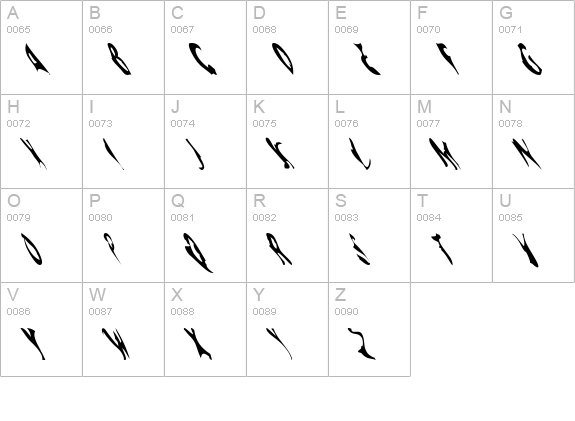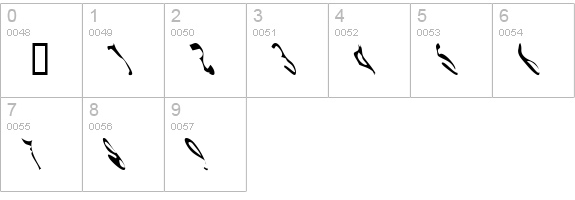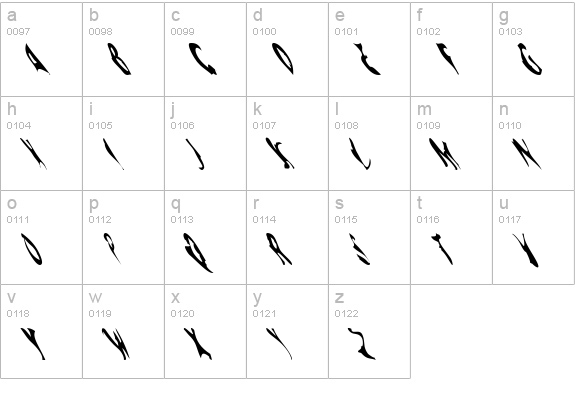
SpookWind Font Details
SpookWind font is a mesmerizing and captivating typeface that will add an air of mystery and intrigue to any design project. This unique font is perfect for creating eye-catching headlines, titles, and logos that demand attention. With its elegant and intricate design, SpookWind font effortlessly combines elements of elegance and edginess, making it suitable for a wide range of creative applications. What sets SpookWind font apart is not just its extraordinary aesthetic, but also the fact that it is freely available to download at FontsMarket.com. This means that you can access this exceptional font without any cost, making it an ideal choice for designers and creatives on a budget. Whether you are working on a personal project or a professional endeavor, SpookWind font will elevate your designs to new heights. Its distinct and hauntingly beautiful characters will bring a sense of sophistication and allure to your work, making it stand out from the crowd. With SpookWind font, you have the freedom to experiment and explore different design possibilities. Its versatility allows you to use it in a variety of contexts, from digital graphics to print materials. The possibilities are limitless, and your creativity is the only boundary. Don't miss out on this incredible opportunity to enhance your design projects with the captivating SpookWind font. Download it for free at FontsMarket.com and let your imagination run wild. Unleash the power of this exquisite typeface and watch as your creations come to life with a touch of intrigue and elegance.